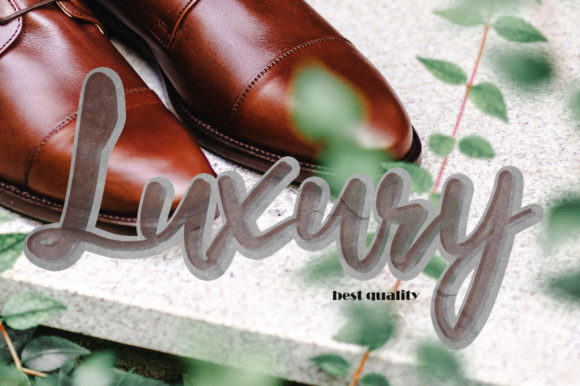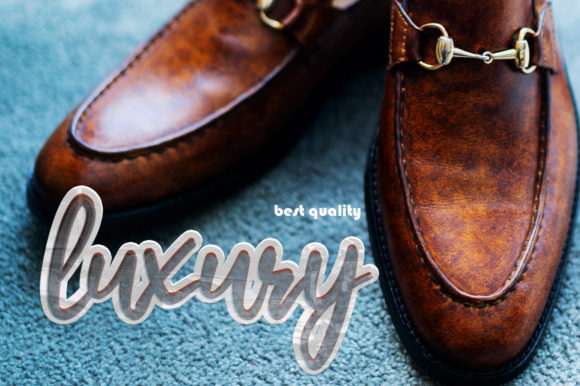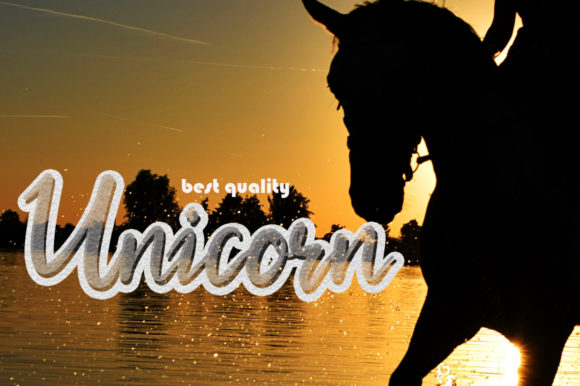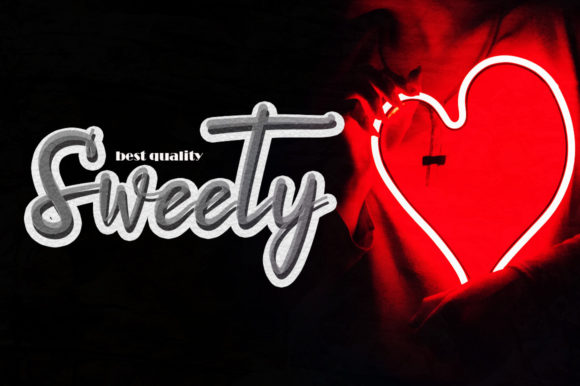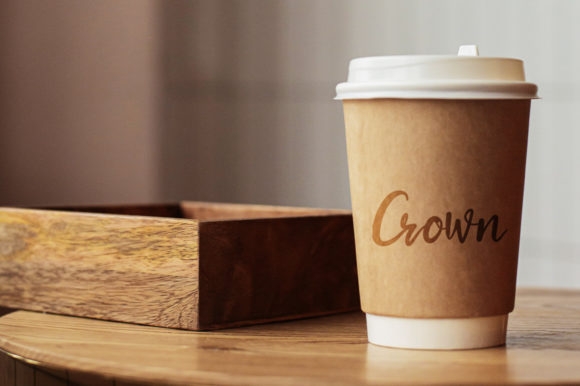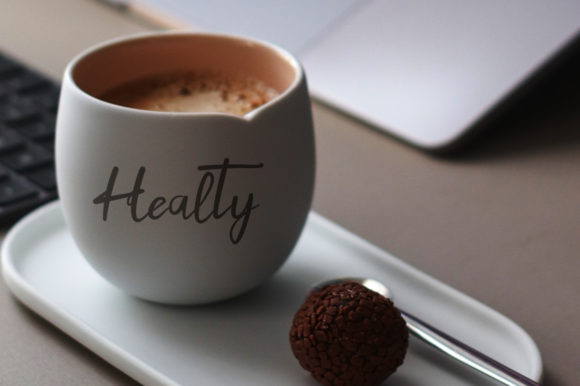
Queen Font
About Queen Font
“Queen Font” is a charming and meticulously crafted handwritten font that aims to deliver exceptional results in various design projects. With its careful design and attention to detail, this font is likely to bring a touch of elegance and uniqueness to any creative endeavor.
The fact that “Queen Font” is PUA encoded adds an extra layer of convenience and flexibility to its usage. This encoding allows users to easily access a wide range of glyphs and swashes, expanding the creative possibilities of the font. Whether you’re working on logos, branding, invitations, social media graphics, or any other design project, the diverse characters and swashes within “Queen Font” can help you achieve a personalized and captivating look.
Handwritten fonts like “Queen Font” often carry a sense of authenticity and warmth that can resonate with various audiences. Their organic and flowing characteristics can evoke emotions and add a personal touch to your designs. The choice of a handwritten font can play a significant role in defining the overall aesthetic and message of your project.
If you’re considering using “Queen Font,” don’t hesitate to explore its features and experiment with different combinations of glyphs and swashes. This font has the potential to add a unique and eye-catching element to your designs, making them stand out and leave a memorable impression.